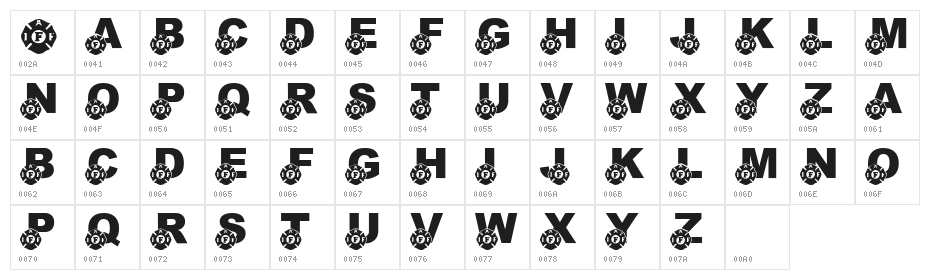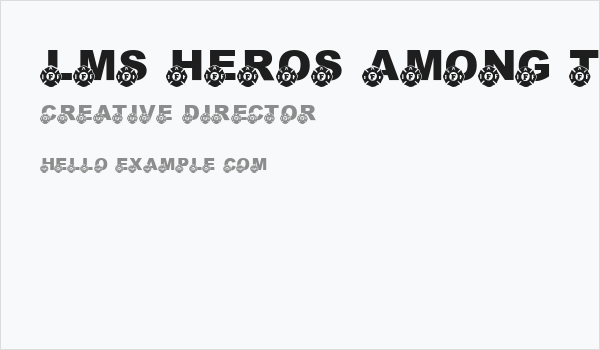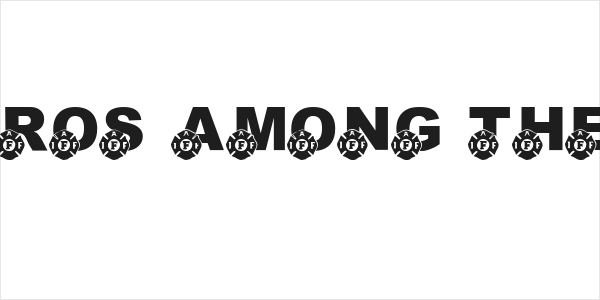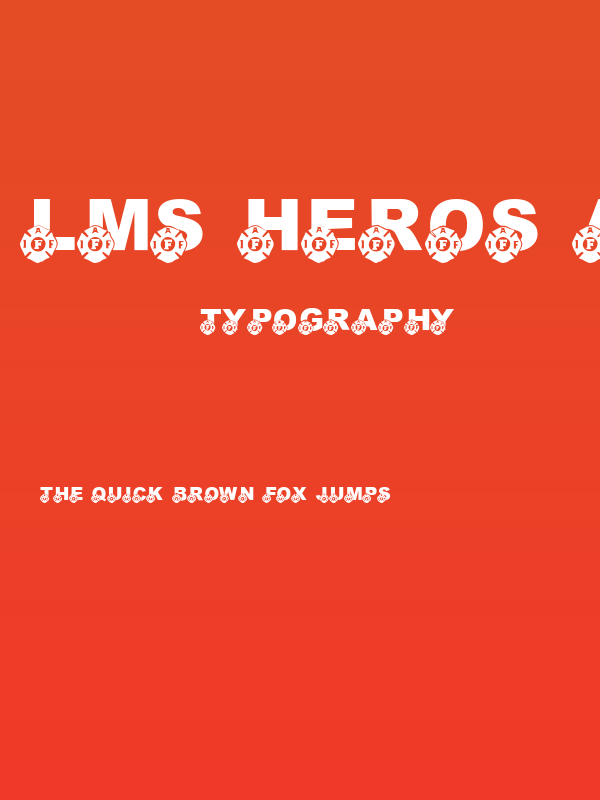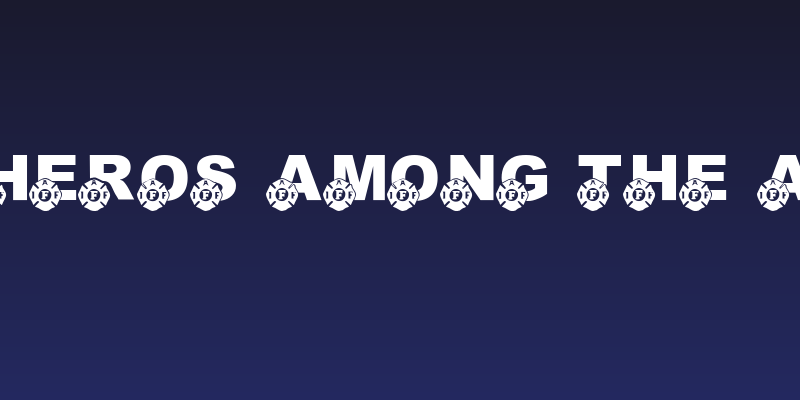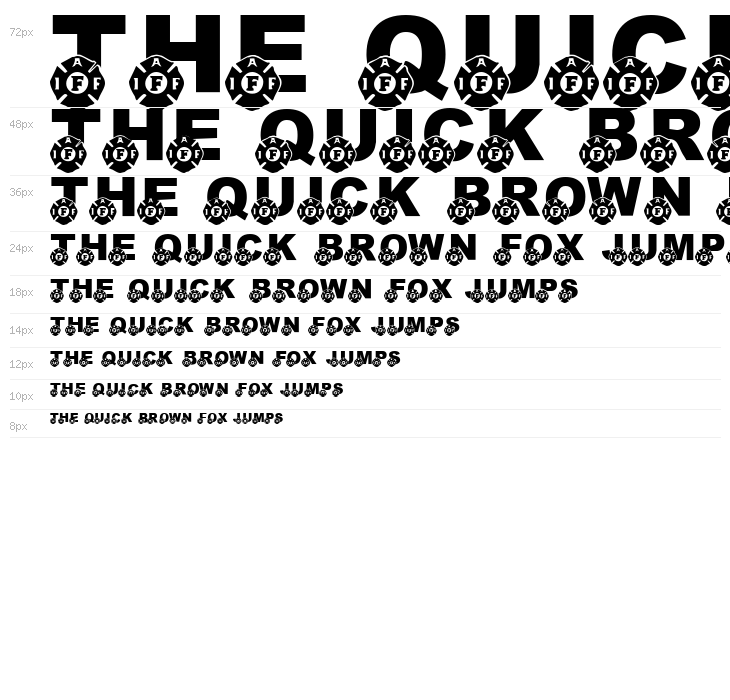
LMS Heros Among The Ashes Font
LMS Heros Among The Ashes Description
This font features bold, uppercase letters with a unique design element incorporated into each character. Each letter is adorned with a circular emblem that includes the letters 'IAFF' within a star-like shape, giving it a distinctive and decorative appearance. The font is highly stylized, with a strong emphasis on its decorative elements, making it stand out in any design. The boldness of the characters ensures high visibility and impact, suitable for attention-grabbing headlines or logos. The consistent use of the emblem across all characters creates a cohesive and thematic look, ideal for projects that require a strong visual identity.
| Proposed Projects | Ideal for branding, logos, event posters, or any project requiring a strong, thematic visual identity. |